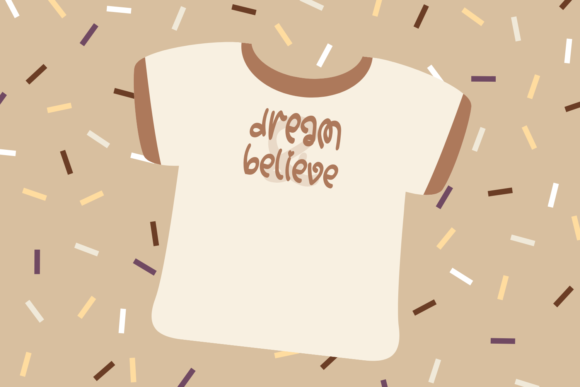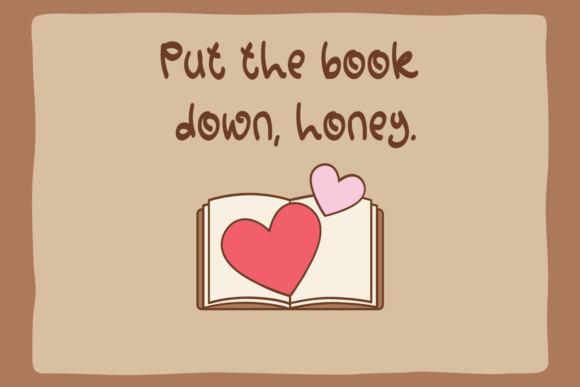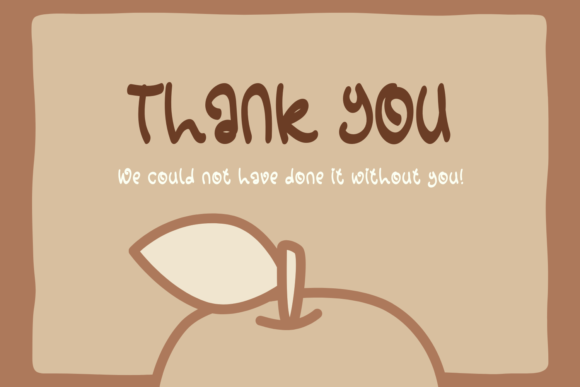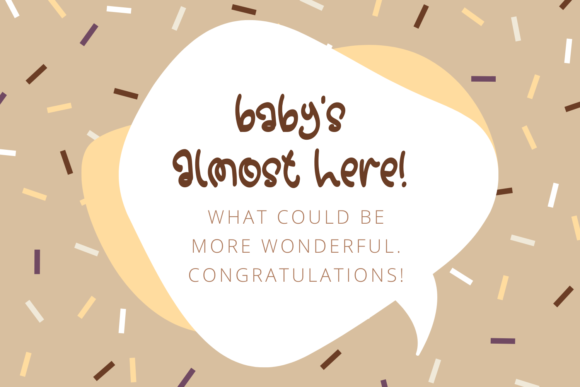
Nasi Rendang Font
About Nasi Rendang Font
Nasi Rendang is a cute and charming handwritten font. Whimsical and a bit quirky, this font will brighten up each of your designs. Add it confidently to your projects, and you will love the results.